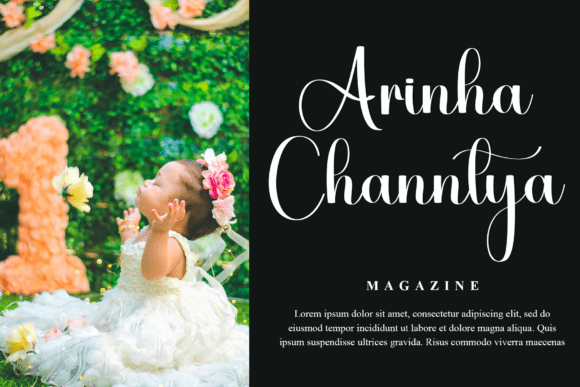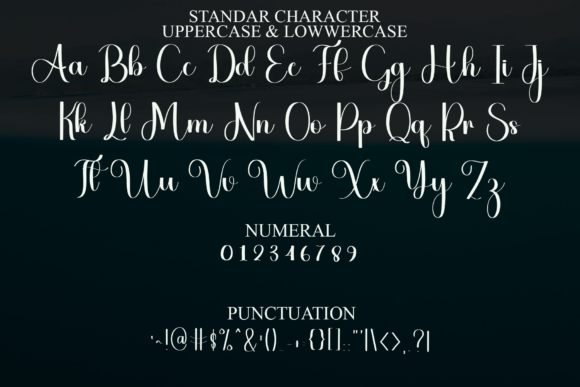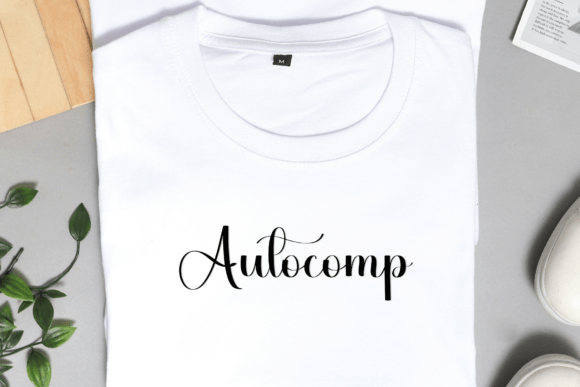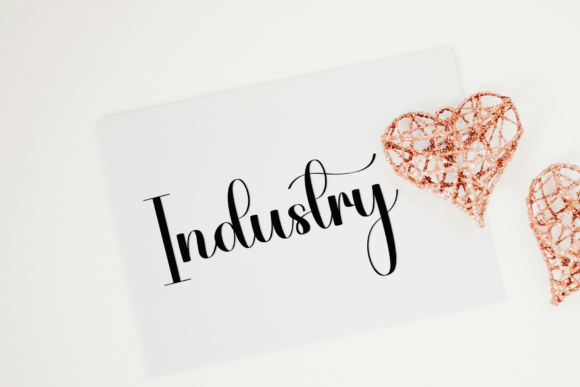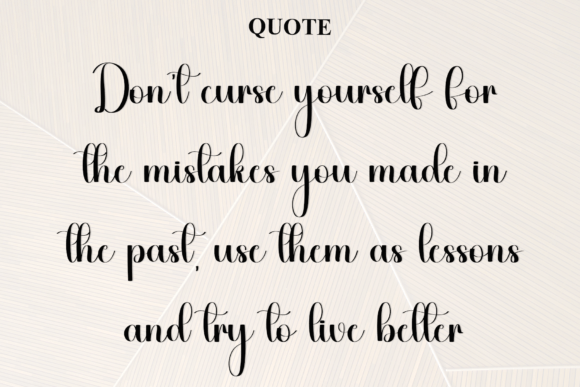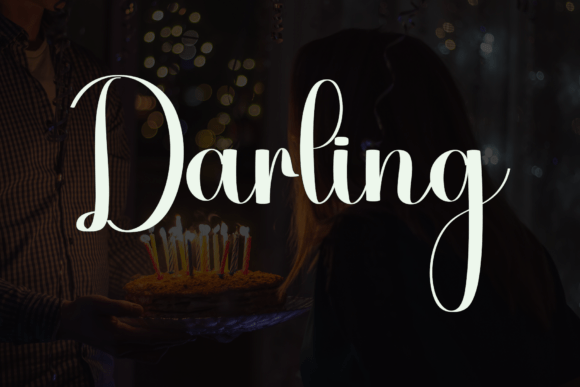
The Birth of a Darling Font: A Design Love Story
I’ll never forget the time I was working on a birthday party invitation for a client’s little one. I had the design concept nailed, but something was missing – the perfect font. I scoured the internet, tried out a dozen fonts, but none seemed quite right. That’s when I stumbled upon Birthday Darling Font. Its playful, hand-drawn charm instantly won me over, and I knew I had found the perfect match.
What I Love About Birthday Darling Font
- ✨ The casual, creative vibe is perfect for personal projects, invitations, and social media graphics.
- ✅ The round, playful strokes create a relaxed and approachable feel that’s hard to achieve with other fonts.
- 🎉 The font’s charming, hand-drawn aesthetic adds a fun and unique touch to any design.
- 💻 It’s equipped with standard PUA Encoded glyphs, making it compatible with various application engines.
While Birthday Darling Font is an amazing addition to any design project, there are a few things to keep in mind:
- ⚠️ Some users might find the font a tad too casual for formal projects.
- 🤔 The font’s playful nature might not be suitable for very long blocks of text.
The Designer Inspiration Behind Birthday Darling Font
The story behind Birthday Darling Font is one of creativity and passion. The designer, inspired by the joy of celebrating special occasions, set out to create a font that would bring a smile to people’s faces. With its playful, hand-drawn aesthetic, Birthday Darling Font is the perfect reflection of that vision.
Q: Is Birthday Darling Font suitable for body text or long blocks of text?
A: While Birthday Darling Font is perfect for headings, titles, and short paragraphs, it may not be the best choice for very long blocks of text. Its playful nature is better suited for designs that require a more personal touch.